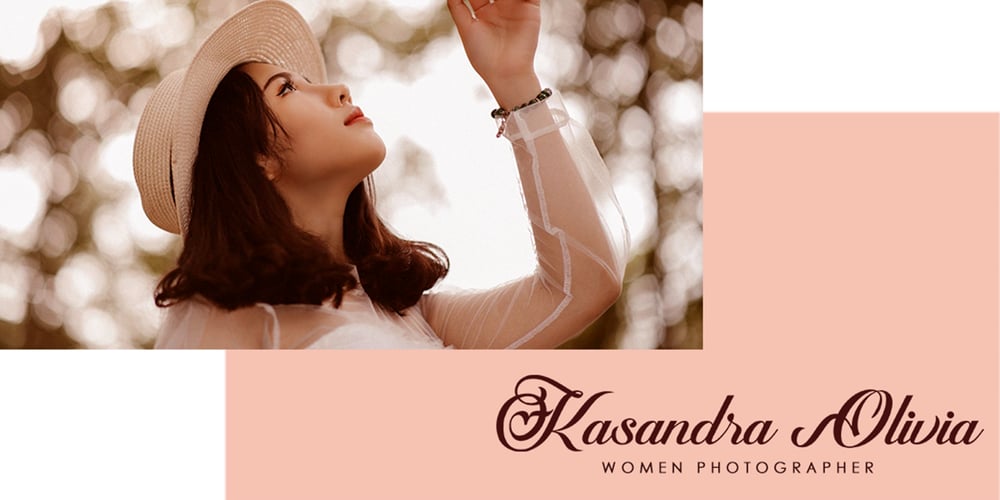
Feeling Lovely Font Family was designed by Rangga Subekti and published by Subectype. Feeling Lovely contains 1 styles and family package options. Feeling Lovely is an elegant calligraphy font. It features a varying baseline, is modern and looks stunning. It can be used for various purposes such as headings, weddings, invitations, signatures, logos, branding, t-shirts, letterheads, and much more! I hope you enjoy this font. If you have any questions please don’t hesitate to drop me a message ๐ Thank You, Subectype